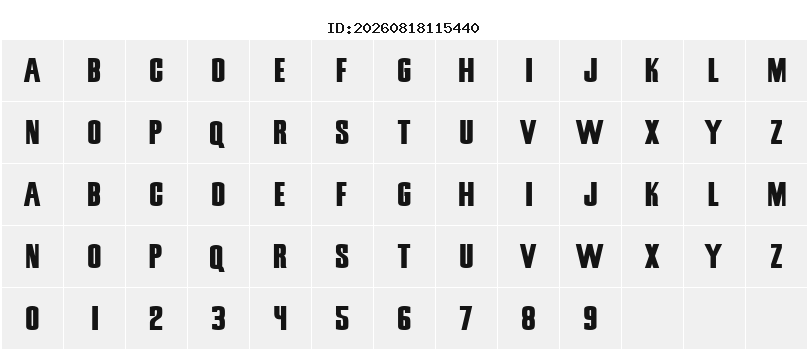
Snickers Straight Preview
• Font Name: Snickers Straight
• Font ID: SnickersStraight(Not Oblique)
• Full Font Name: Snickers Straight Normal
• PostScript Name: SnickersStraightNormal
About Snickers Straight.ttf
Snickers Straight.ttf is a modern, elegant sans-serif font designed for ultimate readability and visual harmony. Perfect for branding, headlines, web design, and print materials.